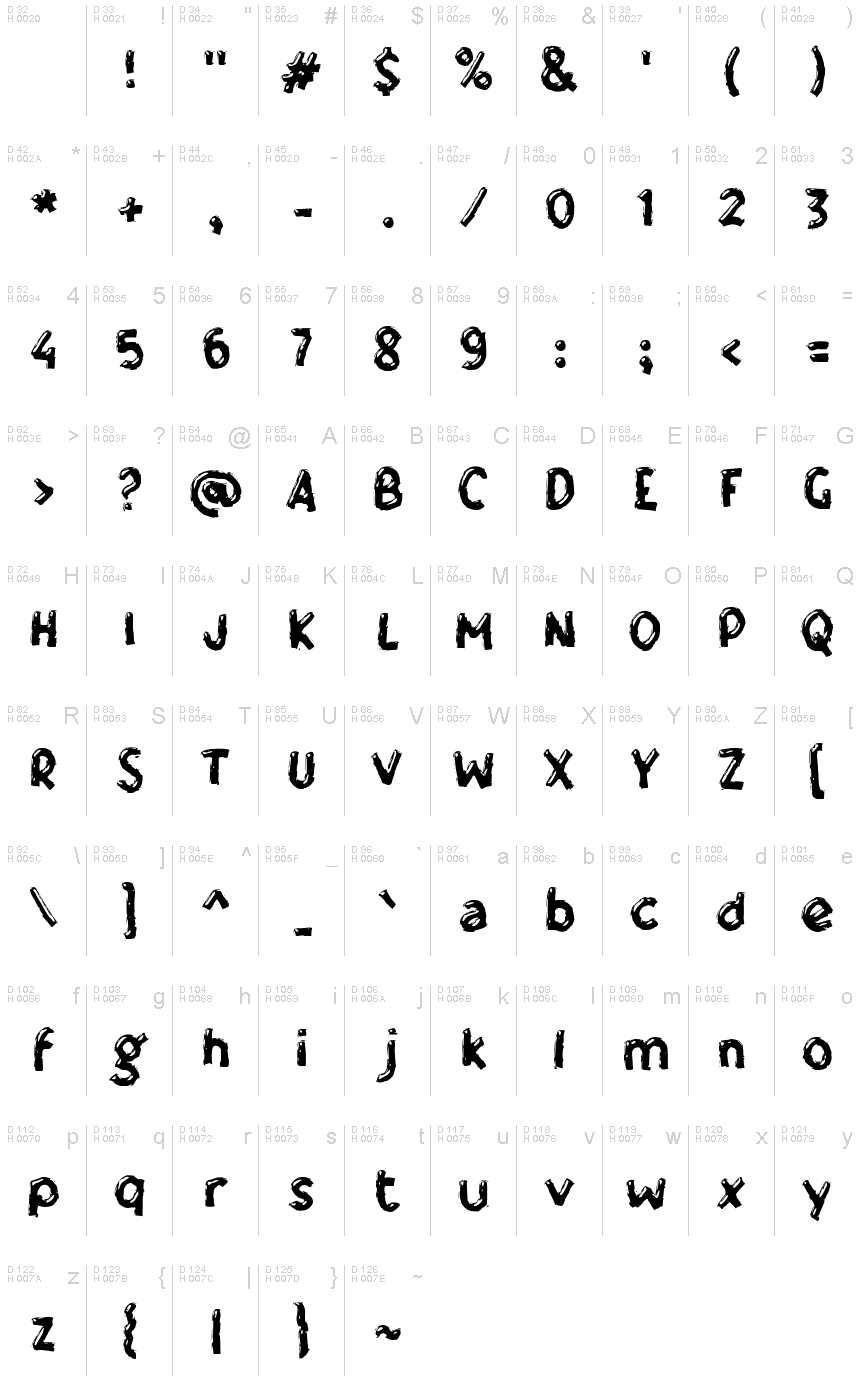
EROSS
ERoss, a captivating display font designed by wep, exudes a unique eroded style. Its semi-bold weight adds a touch of boldness to any project. Ideal for eye-catching headlines and attention-grabbing titles, ERoss is perfect for branding campaigns, edgy websites, and striking social media graphics. This versatile font type brings a dynamic energy to posters, album covers, and urban-inspired designs. With its rugged charm and distinctive erosion effect, ERoss leaves an unforgettable impression on logos, packaging designs, and fashion editorials. Unleash your creativity with ERoss - the epitome of bold expression in typography.